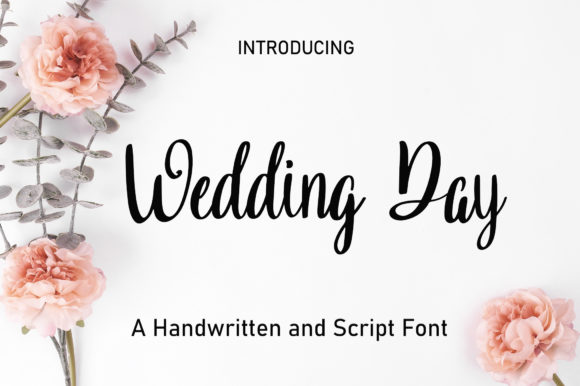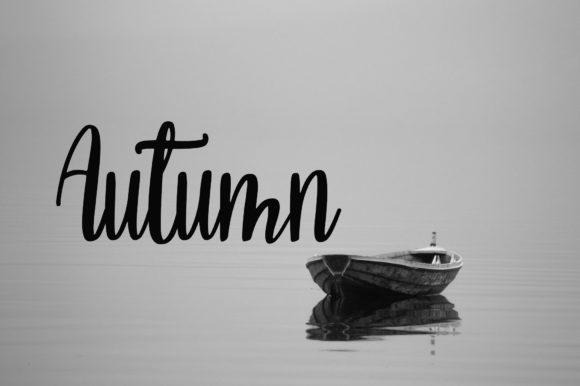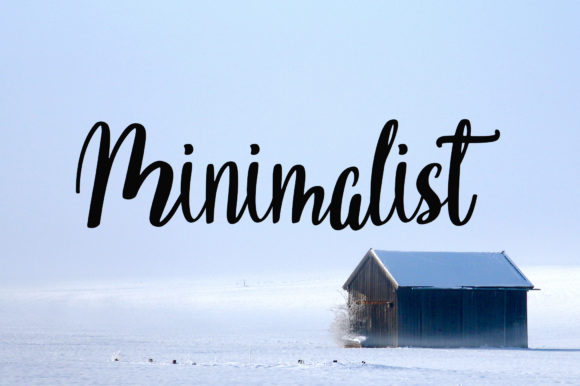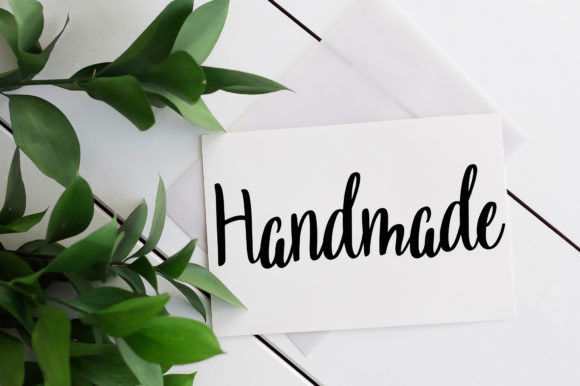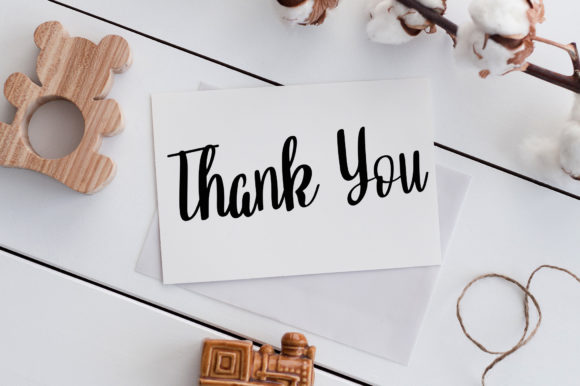
Wedding Day Font
About Wedding Day Font
Wedding Day is a script font that embodies elegance and modern style. With its delicate and meticulously crafted characters, it is a perfect choice for a wide array of branding projects. Whether you’re designing a captivating logo, embellishing t-shirt prints, or creating innovative creative products, Wedding Day’s versatility shines through, adding a touch of sophistication to your work.
The font’s refined nature makes it an excellent fit for projects that demand a sense of grace and sophistication. Its fashionable and contemporary appearance lends a fresh and refined look to your designs, allowing them to stand out and make a lasting impression. Wedding Day’s unique and stylish form brings a distinctive charm to any branding endeavor.
One of the standout features of Wedding Day is its adaptability, making it suitable for a diverse range of contexts. Whether you’re working on a high-end luxury brand, a whimsical wedding invitation, or even a trendy t-shirt design, Wedding Day effortlessly elevates your creations and adds an air of refinement.
As you explore Wedding Day’s potential, you’ll find that it complements various design elements with ease. Its versatility allows it to seamlessly integrate into different projects, adapting its elegance to suit the desired aesthetic. Whether you’re aiming for a classic and timeless look or a modern and chic vibe, Wedding Day rises to the occasion and enhances the overall visual appeal.
Incorporating Wedding Day into your branding projects opens up a world of creative possibilities. Its delicate and fashionable script captures attention, making your designs memorable and captivating. From logos to apparel and beyond, Wedding Day’s ability to add a touch of sophistication and style ensures that your projects will shine in any context.